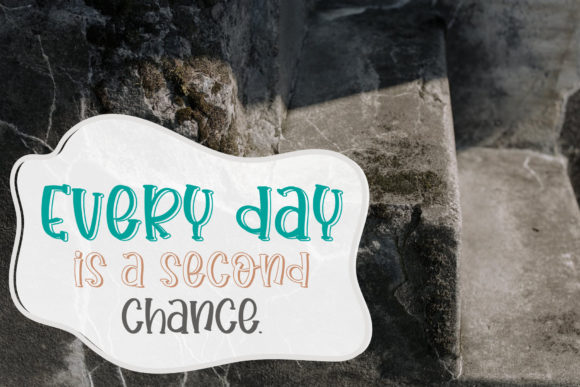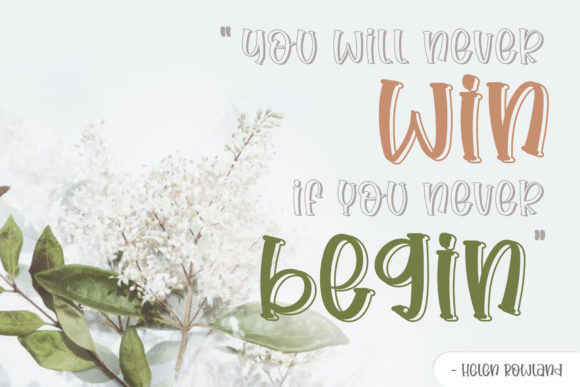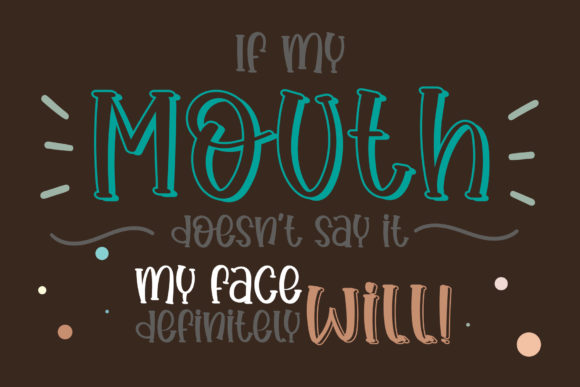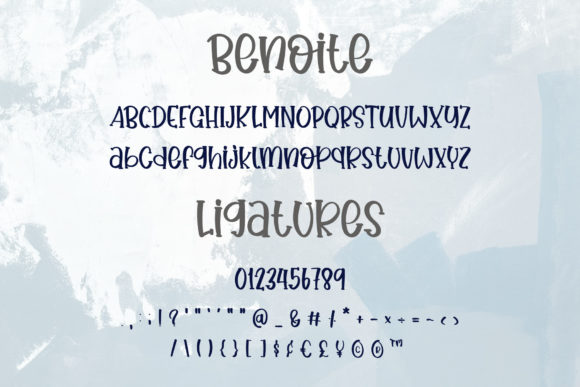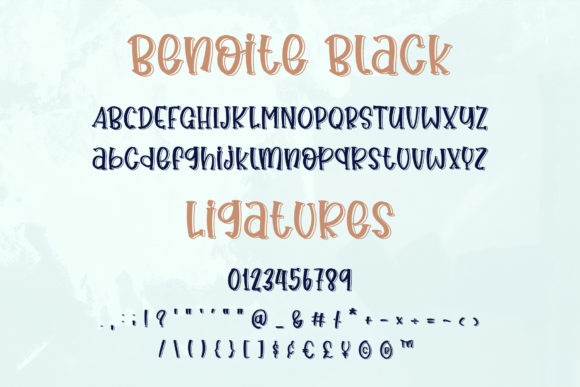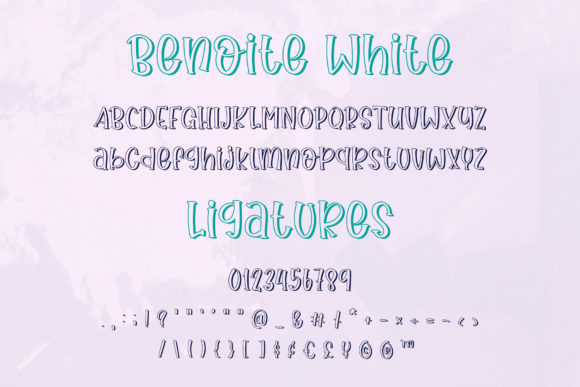
Benoite Font: The Quirky and Jolly Serif Font for Your Creative Projects
Are you a designer or crafter looking for a font that can add a touch of playfulness and whimsy to your creations? Look no further than the Benoite font! This quirky, jolly, and fun-looking serif font is perfect for cartoon-related designs, children’s games, and any project that requires a lovely and charming touch.
What Makes Benoite Font So Special?
Benoite font is a unique and eye-catching serif font that stands out from the crowd. Its quirky and jolly design makes it perfect for projects that require a playful and fun vibe. The font’s serifs are carefully crafted to add a touch of elegance and sophistication, while its overall design remains friendly and approachable.
One of the best things about Benoite font is its versatility. It can be used for a wide range of projects, from children’s books and games to cartoon-related designs and even branding and packaging. Whether you’re creating a fun and playful design or a more serious and elegant one, Benoite font is sure to impress.
Key Features of Benoite Font
So, what makes Benoite font so special? Here are some of its key features:
- Quirky and jolly design: Benoite font has a unique and playful design that is sure to grab attention.
- Serif font: The font features carefully crafted serifs that add a touch of elegance and sophistication.
- Fun and playful vibe: Benoite font is perfect for projects that require a fun and playful vibe, such as children’s games and cartoon-related designs.
- Versatile: The font can be used for a wide range of projects, from branding and packaging to children’s books and games.
How to Use Benoite Font in Your Designs
Using Benoite font in your designs is easy! Here are some tips to get you started:
- Pair it with other fonts: Benoite font pairs well with other fonts, such as sans-serif fonts and script fonts. Experiment with different combinations to find the perfect look for your design.
- Use it for headlines and titles: Benoite font is perfect for headlines and titles, where its quirky and jolly design can really shine.
- Add some color: Benoite font looks great in a variety of colors, from bright and bold to pastel and soft. Experiment with different colors to find the perfect look for your design.
In conclusion, Benoite font is a quirky, jolly, and fun-looking serif font that is perfect for designers and crafters looking to add a touch of playfulness and whimsy to their creations. Its unique design, versatility, and ease of use make it a great choice for a wide range of projects, from children’s games and cartoon-related designs to branding and packaging. So why not give Benoite font a try and see how it can elevate your designs?
Whether you’re a seasoned designer or a crafty DIY enthusiast, Benoite font is sure to inspire your creativity and bring a smile to your face. So go ahead, get creative, and have fun with Benoite font!